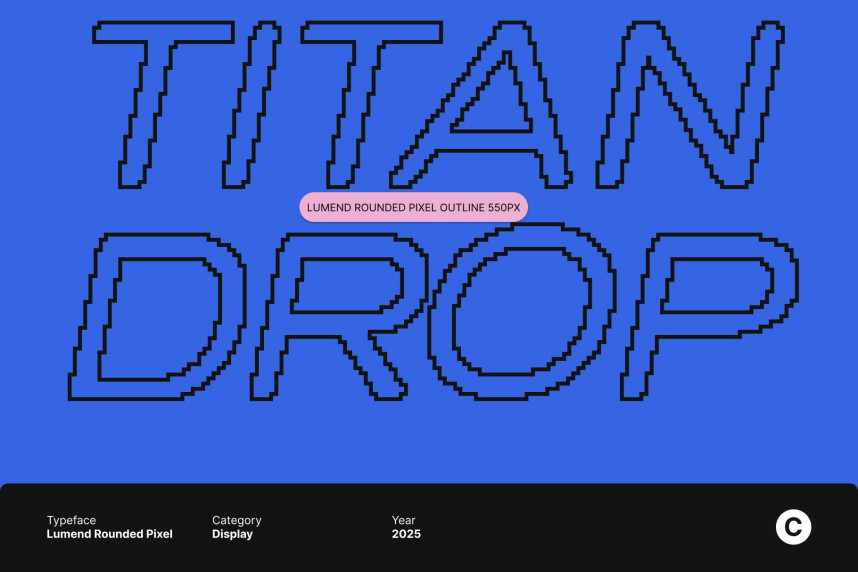
Lumend Rounded Pixel Font
Lumend Rounded Pixel Font – Modern Sans Serif Display Font with Geometric Pixel Style Geometric Precision with a Clean, Modern Presence. This is a modern sans serif display font crafted with sharp geometric precision and smooth rounded edges. Its refined structure radiates professionalism, making it an excellent choice for editorial layouts, digital interfaces, and forward-thinking branding projects that require clarity and contemporary style.